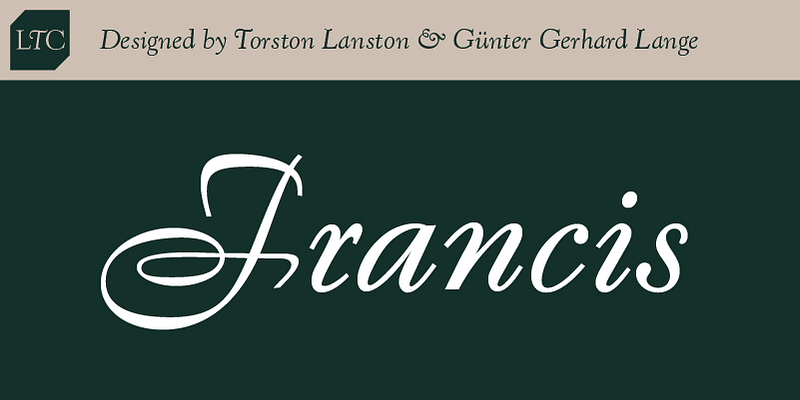
LTC Francis Font Free Download is a distinctive serif typeface that combines traditional elegance with a hint of gothic influence. Originally inspired by classic ecclesiastical and formal type designs, this font is perfect for ceremonial invitations, historic publications, branding projects with vintage flair, and editorial layouts that demand a touch of sophistication.
Its tall, narrow letterforms and subtle ornamentation give it a graceful yet commanding presence on both print and digital platforms. Compatible with popular design software like Adobe Creative Suite, Canva, and more, LTC Francis makes a strong statement while maintaining high legibility.